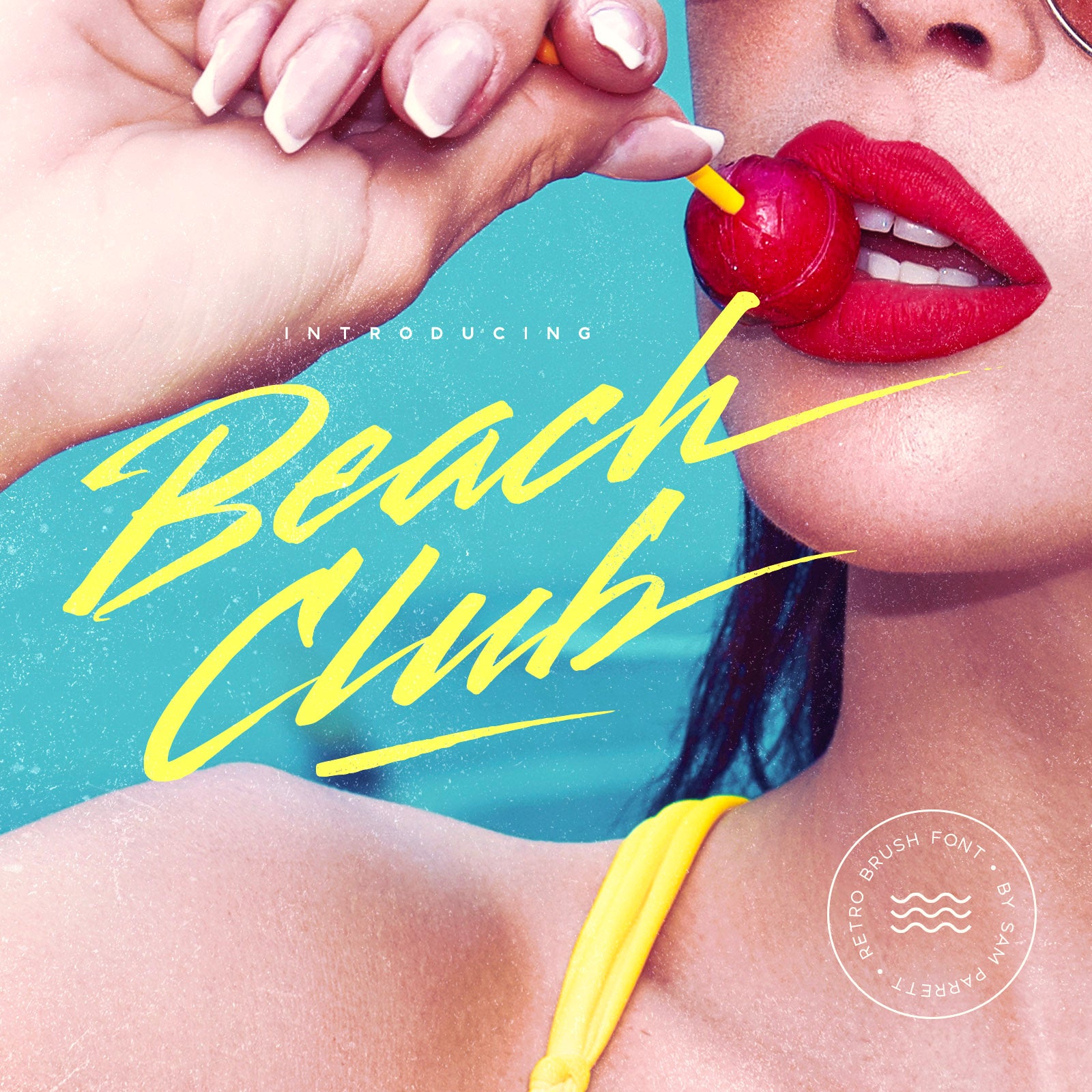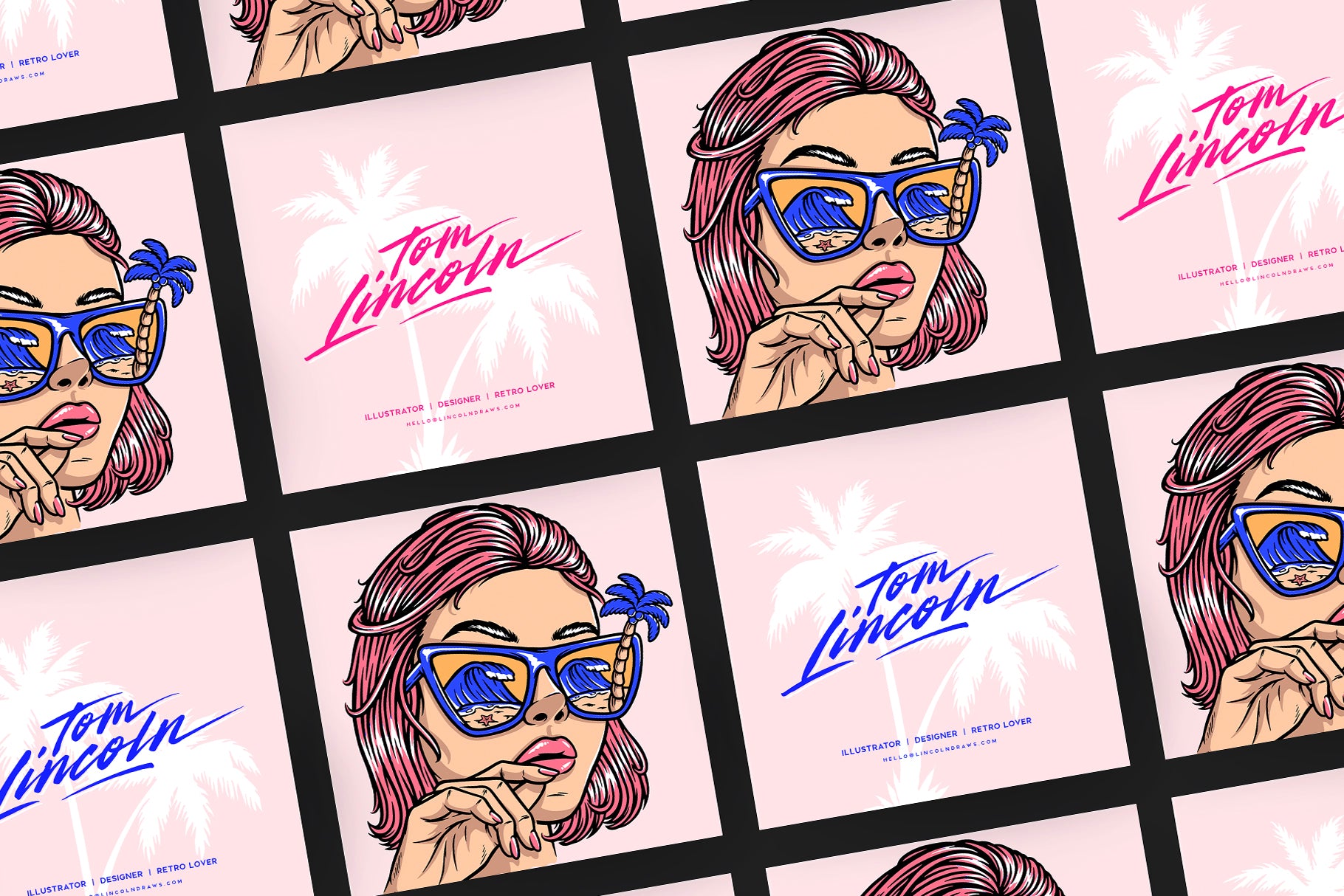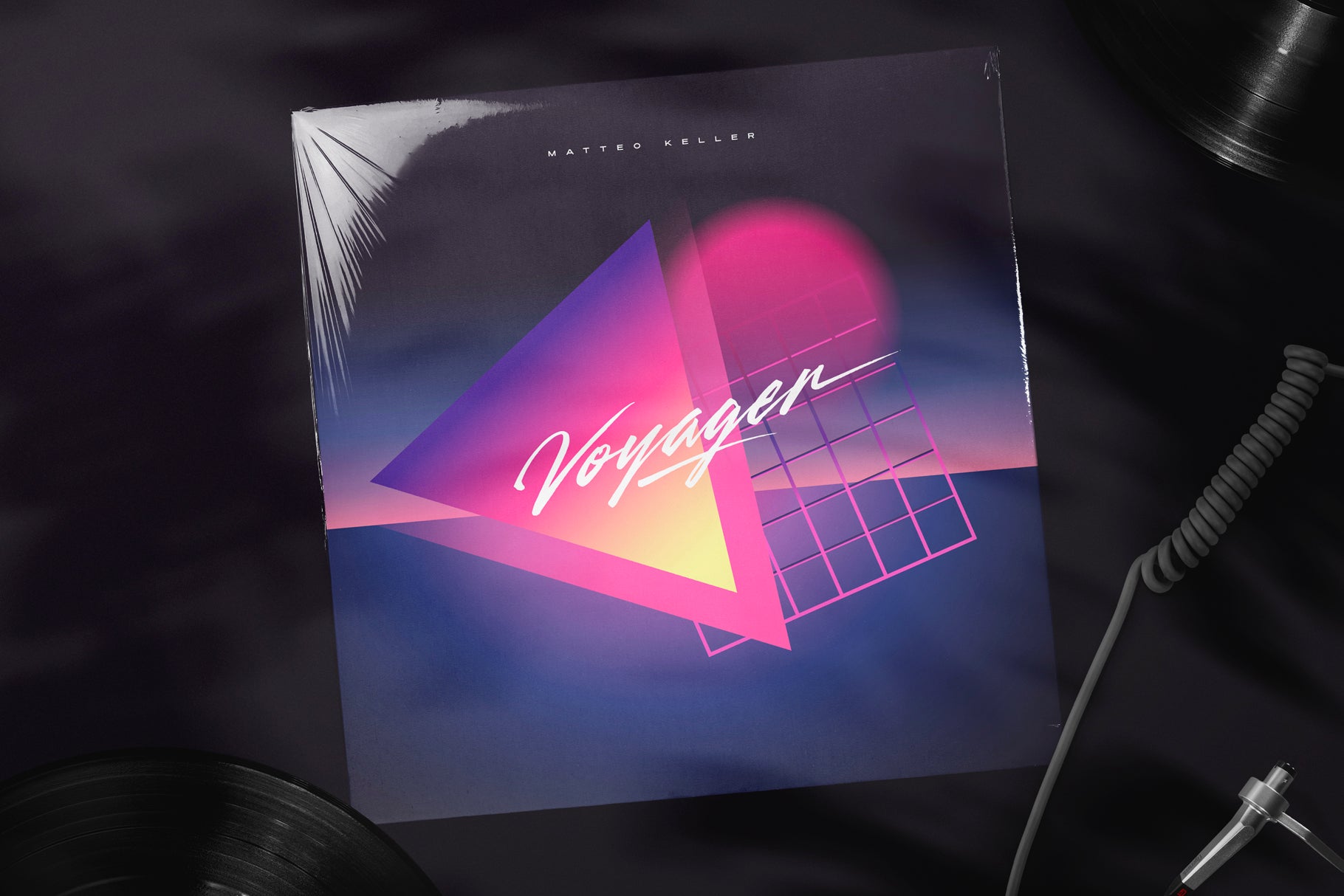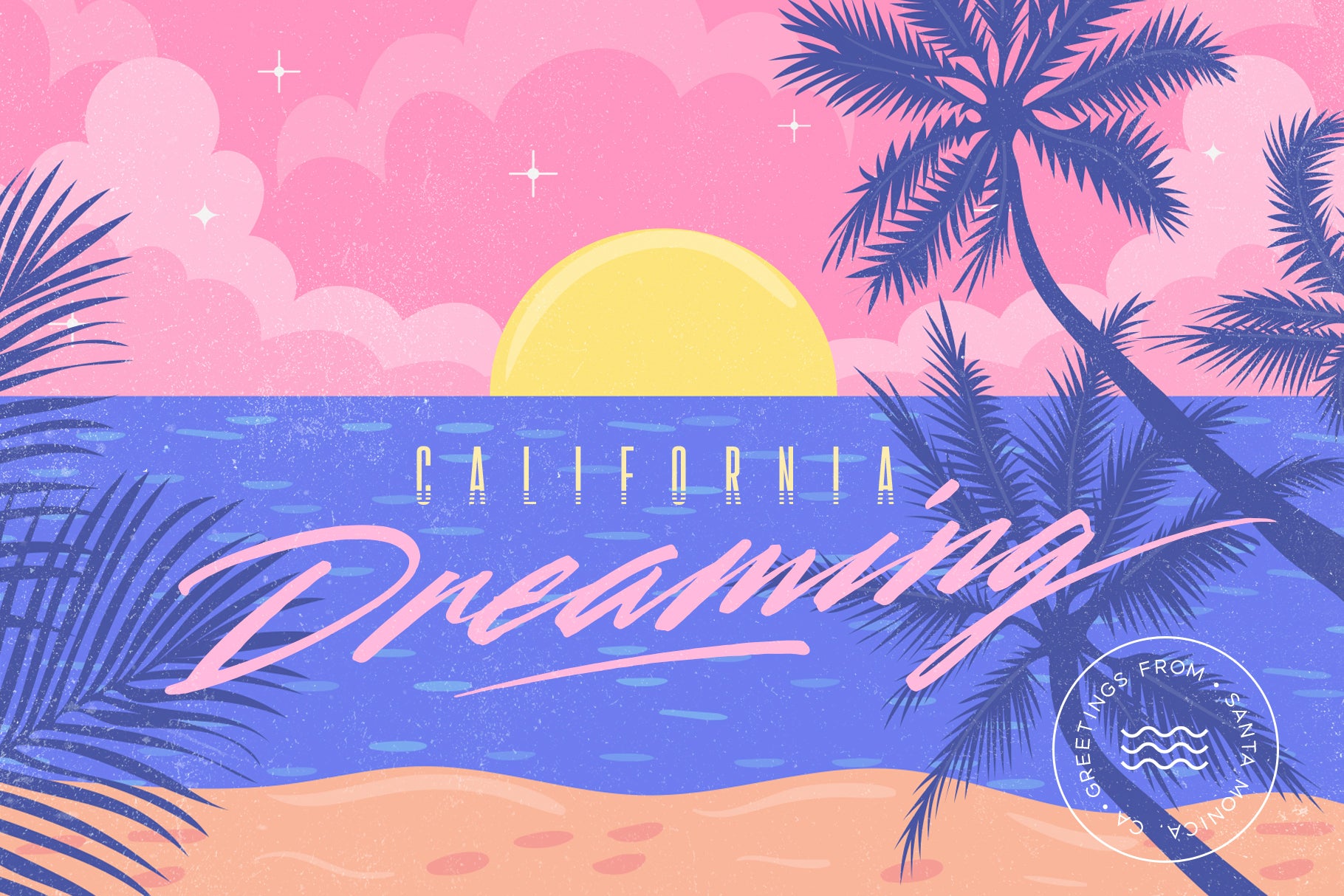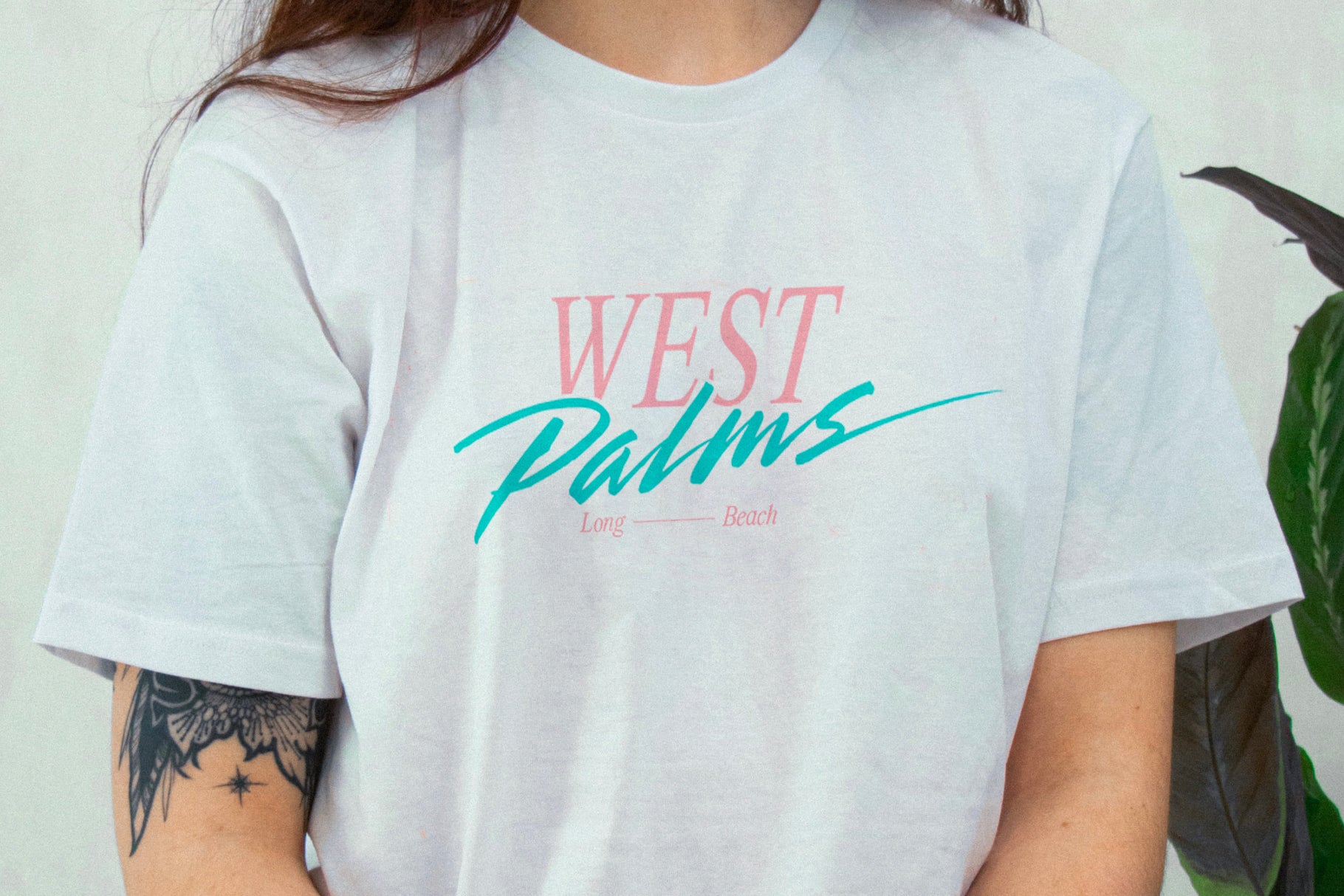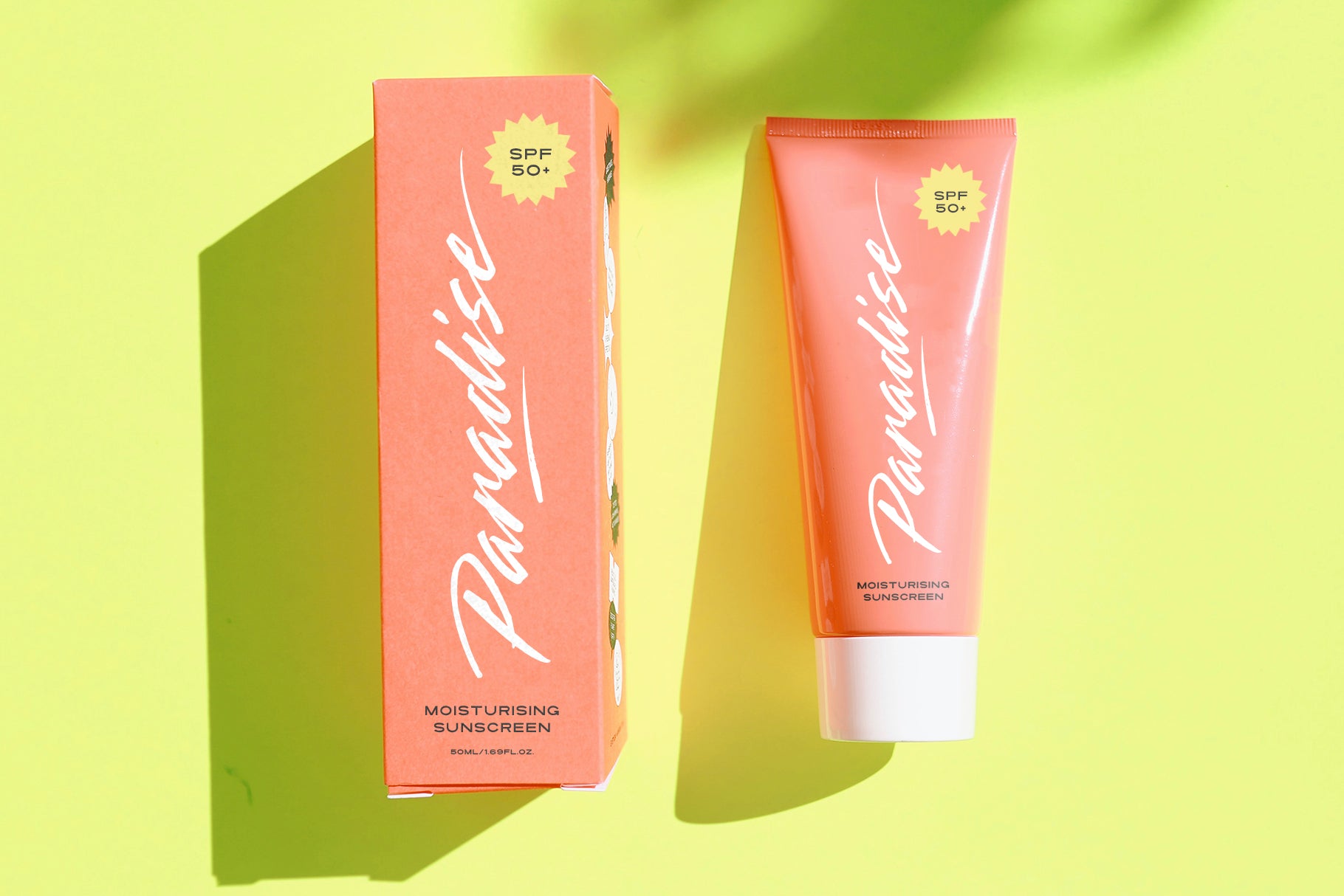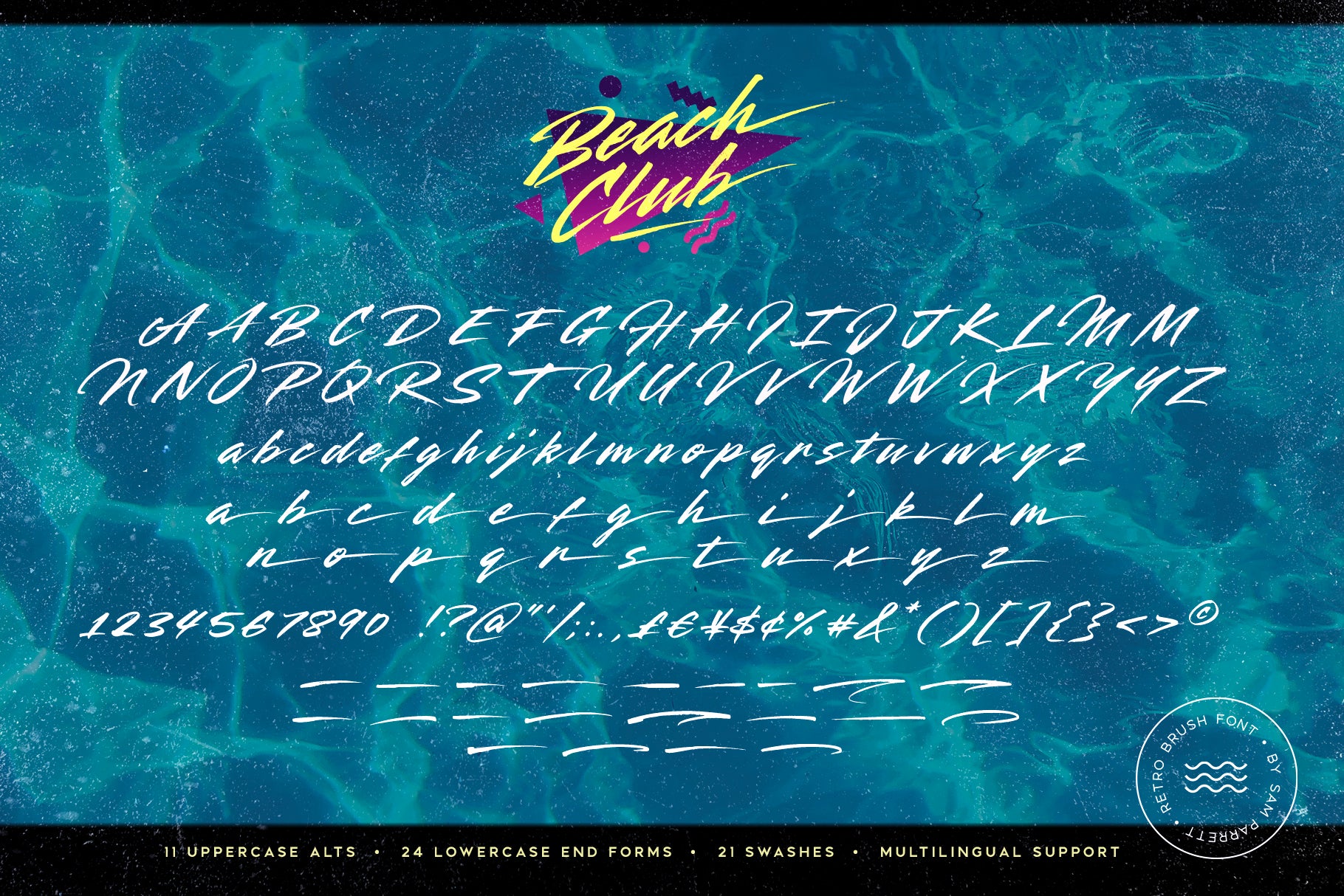
Beach Club Retro Brush Font
The Beach Club Retro Brush Font is a high-energy script font featuring both upper and lowercase characters, numerals, and punctuation. It includes two font files: Beach Club Script, which offers a handwritten style, and Beach Club Swash, which provides 21 decorative swashes for added flair, along with alternate and end characters for enhanced customization. Language support includes multiple European and Indonesian languages.